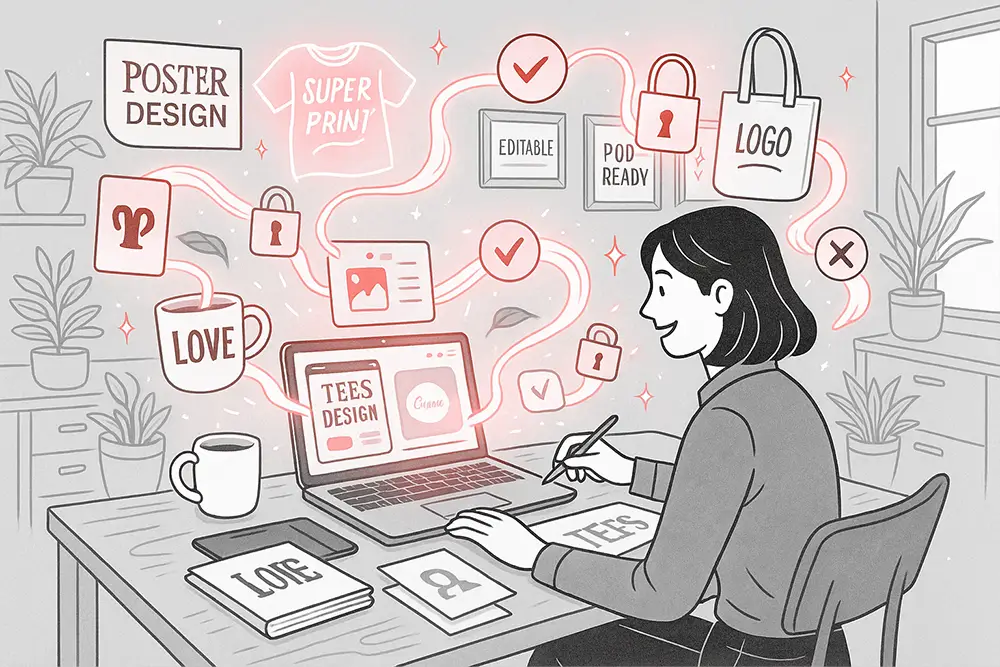
Why POD Creators Can’t Ignore Font Licensing
If you’re designing editable Canva templates for print-on-demand (POD), you’re walking a fine line between creativity and compliance. Fonts might look like simple design assets, but the wrong move can result in takedown notices, demonetized shops, or even legal trouble. That’s why understanding the POD License is crucial—not just for Canva users, but for every creative selling templates online.
Many new designers assume that any font uploaded into Canva is fair game for resale in POD templates. The truth? Unless your fonts come with the right POD License, you might be violating the designer’s rights. And once platforms like Etsy or Creative Market crack down, your store reputation can collapse overnight.
What Is a POD License?
A POD License (Print-On-Demand License) is a specific type of font license that allows you to use a font inside editable templates or digital products where buyers can customize text themselves. This is different from a Standard License, where fonts are used for static designs (like logos, posters, or social media graphics).
At Figuree Studio’s License Page, the POD License is clearly outlined as a requirement for:
- Canva templates where users can type their own words
- Editable templates for platforms like Templett, Corjl, or Photoshop
- Digital products that rely on customer text customization
Without this license, you’re essentially redistributing the font illegally—even if buyers only see it through Canva.
Canva Templates + Fonts: What’s Allowed Under POD License?
When you buy the correct POD License, you’re granted rights to:
- ✅ Upload fonts into editable Canva templates
- ✅ Sell Canva templates on Etsy, Creative Market, or your own site
- ✅ Allow customers to type in their own names, messages, or branding
- ✅ Use fonts in commercial digital products without fear of takedowns
But here’s what’s not allowed even with a POD License:
- ❌ Reselling the font files directly
- ❌ Giving away editable files where the font can be extracted
- ❌ Claiming the font as your own creation
For clarity, Envato also explains this distinction between “end products for sale” and “redistribution”—see their Font Licensing Guide.
Fonts That Shine in Canva Templates
Not all fonts are equally effective in Canva templates. Some are too complex, while others fail to scale well across multiple mockups. Based on our catalog, these five stand out for POD creators:
Kids Zone – Layered Playful Font → perfect for kid-friendly Canva templates
Shutter Breathing – Organic Brush Font → adds authenticity to social media packs
Magic Dreams – Comic Font → ideal for fun, editable quote templates
Nightfall – Urban Bold Script → gives POD templates an urban vibe
Komix Eighties – Playful Display Font → retro, vibrant, and eye-catching for poster mockups
From Our Desk: What I’ve Learned About POD Licensing
As someone who has worked with countless font licenses, I’ve realized one thing: the cheapest option today often becomes the most expensive mistake tomorrow.
When I first experimented with selling Canva templates, I underestimated how strictly platforms monitor font usage. Some of my templates were flagged, and it took weeks to untangle the licensing confusion. Once I switched to fonts covered under a POD License, not only did sales become stable, but I could confidently scale my shop without fear.
To borrow words from Seth Godin in This Is Marketing:
“The cost of being wrong is less than the cost of doing nothing.”
Investing in the right license may seem costly upfront, but it’s cheaper than losing your entire store.
Conclusion: POD License Is Your Creative Insurance
If Canva templates are your bread and butter, then the POD License is your insurance policy. It protects your business, your reputation, and your income stream. Don’t risk takedowns, don’t risk gray areas—design with confidence.